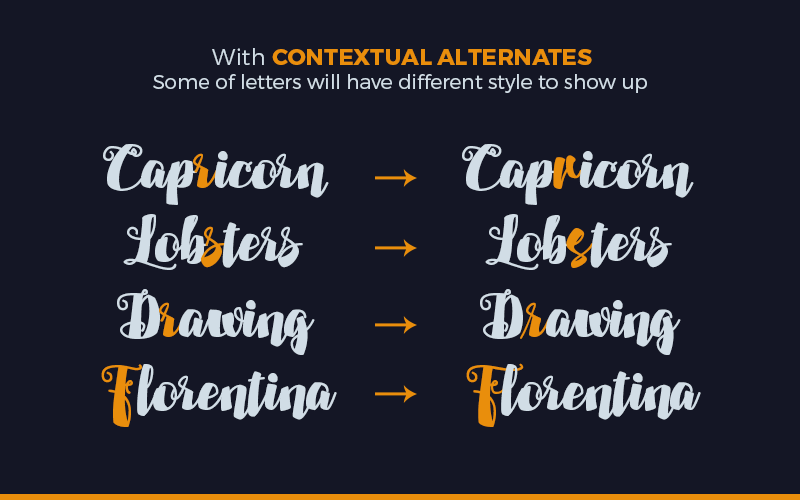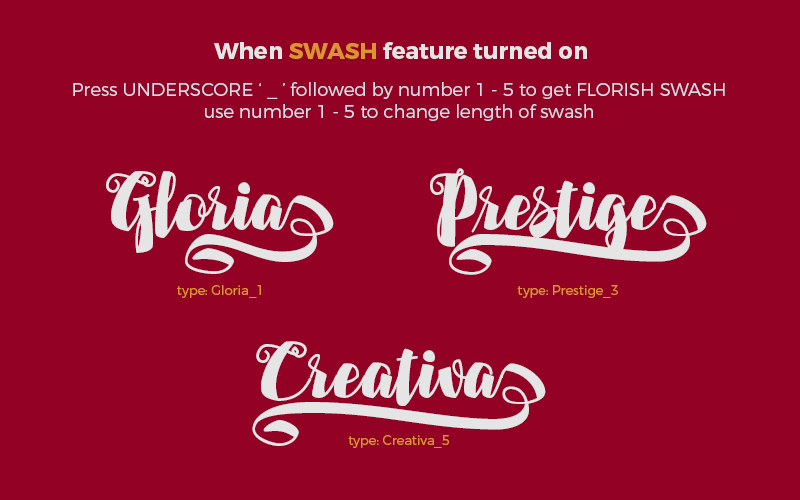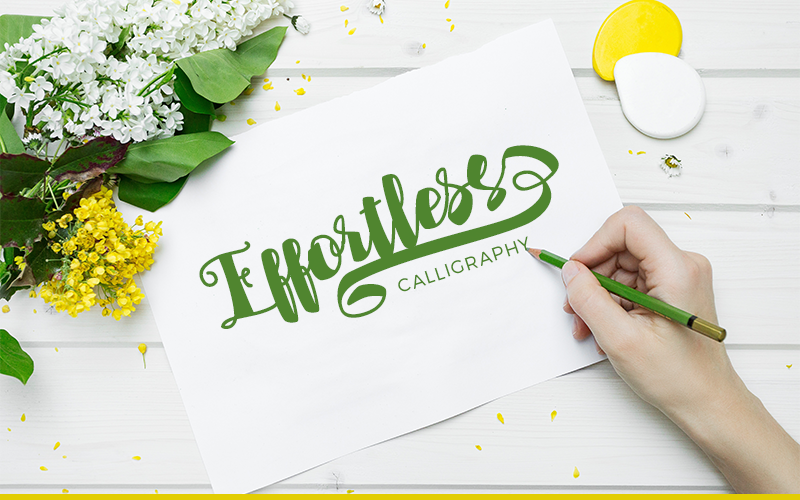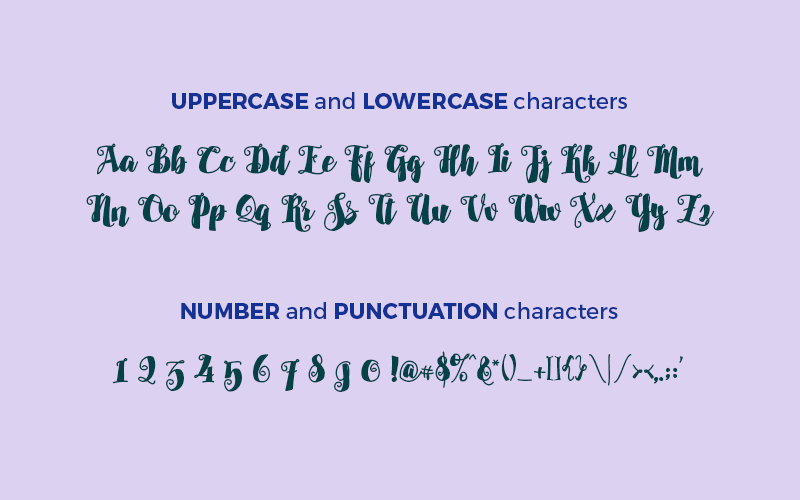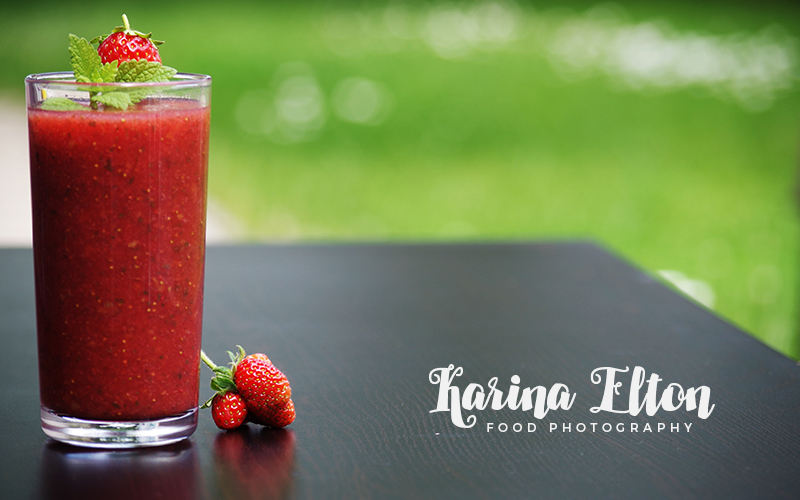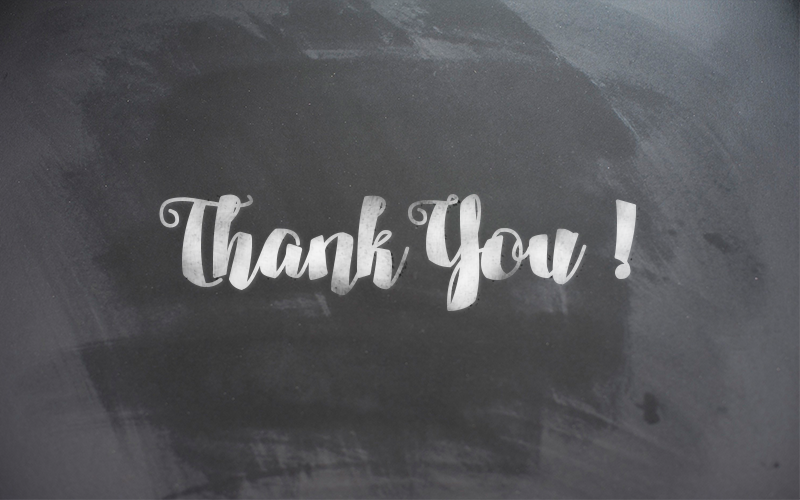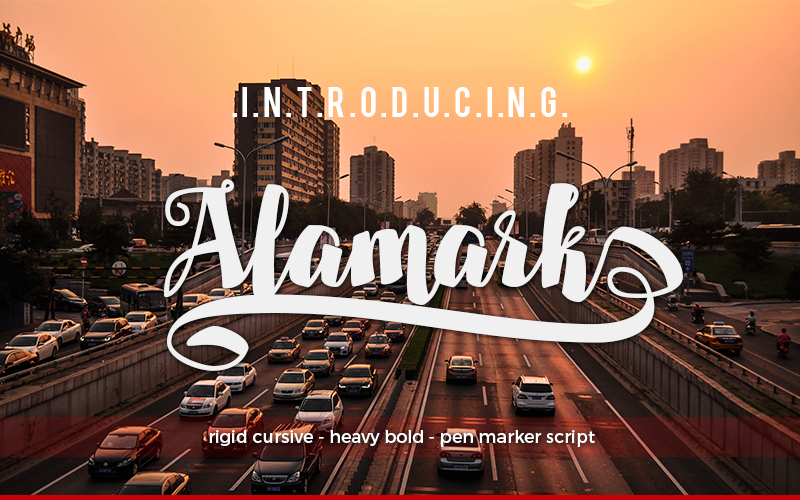
The Art of Captivating Typography: Discovering the Alamark Font
You know that moment when a design comes together and you’re hooked? The words dance on the page, and you can’t help but feel a rush of excitement. It’s a moment that makes all the late nights and early mornings worth it. For designers, this feeling is what drives us to push the boundaries of creativity and explore new possibilities. And that’s where the Alamark Font comes in – a beautiful, bold, and bont cursive script that demands attention and elevates any design.
Designed to make a statement, the Alamark Font is perfect for headline or display designs that need to stand out from the crowd. Its intricate craftsmanship and marker-inspired aesthetic make it a valuable addition to any designer’s toolkit. Whether you’re working on a project that requires a touch of elegance or a dash of playfulness, the Alamark Font is sure to deliver.
Alamark Font Key Features
- Unique Characteristics: Features a unique blend of modern and traditional design elements, making it perfect for a wide range of applications, from corporate identities to editorial content.
- Kerning and Ligatures: Features advanced kerning and ligature pairs to ensure smooth text rendering and a polished appearance.
Alamark Font Review
Overall, I think Alamark Font has some nice qualities that could make it a great addition to your design projects. ✨ Here are a few things that stand out:
- It has a unique and modern aesthetic that could work well for a variety of designs, from logos to product packaging.
- The font is highly customizable, allowing you to adjust the spacing and style to fit your specific needs.
- The font family includes multiple weights and styles, giving you a lot of flexibility in terms of the look and feel you want to achieve.
However, there are also some limitations to consider ⚠️:
- The font may not be as readable in smaller sizes, which could be a concern if you’re planning to use it for body text or other situations where legibility is key.
- The font’s unique style may not be to everyone’s taste, so it’s worth considering your target audience and whether this font will resonate with them.
- There may be some compatibility issues with certain operating systems or browsers, so be sure to test the font thoroughly before using it in a live project.
Overall, I think Alamark Font is a solid choice for designers who want a modern and customizable font. With a little experimentation and testing, I think you can get some great results from this font. But be sure to weigh the pros and cons carefully before deciding whether it’s the right fit for your project.
Alamark font is versatile and suitable for a variety of designs, including:
- Business cards and stationery
- Website headers and footers
- Infographics and presentations